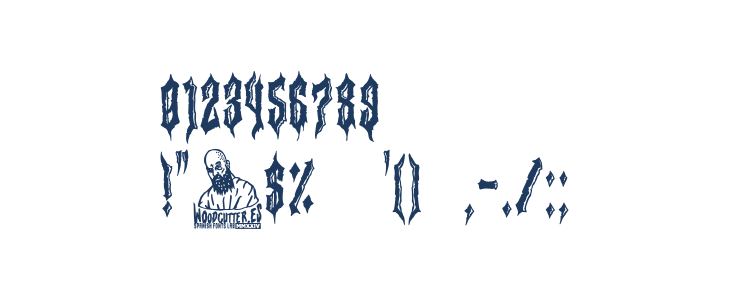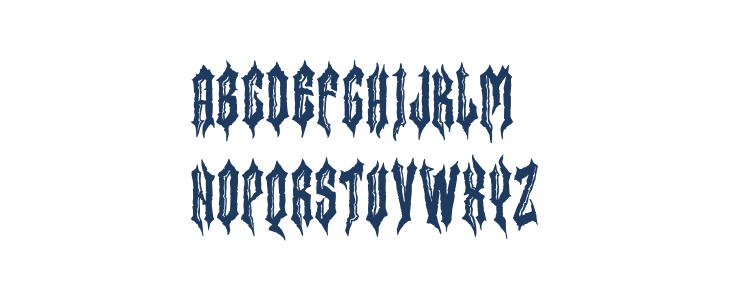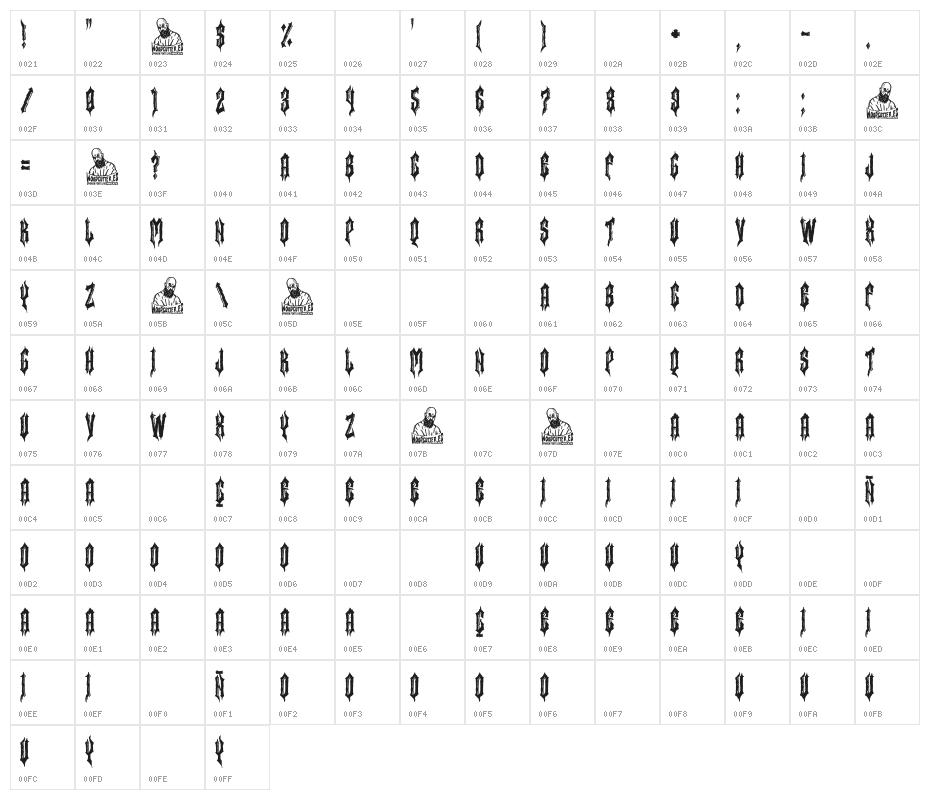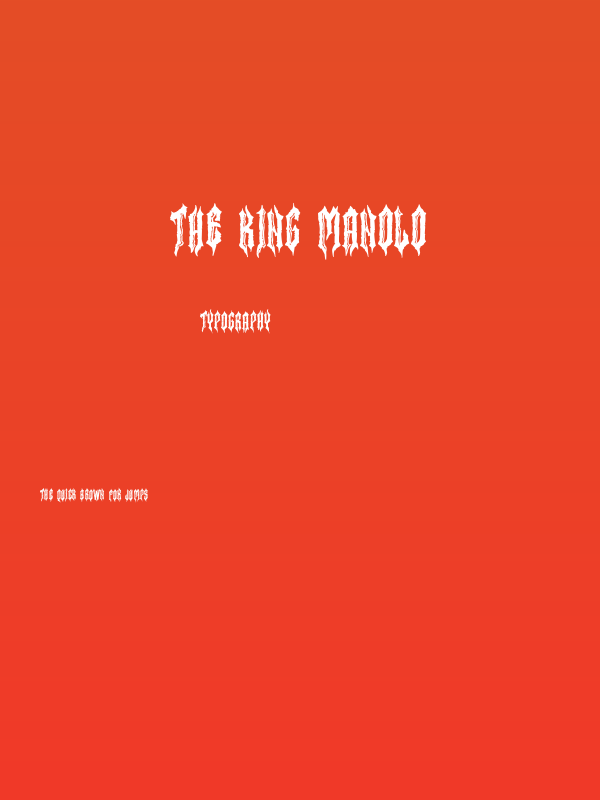
The King Manolo Font
A highly decorative, jagged, and spiky display font with sharp edges and dramatic, irregular strokes, evoking a gothic or horror-inspired aesthetic. The letterforms are bold and condensed, with high contrast between thick and thin areas, and exaggerated vertical elements.
Overall StyleDecorative, Gothic, Horror
Proposed ProjectsHorror movie posters, Halloween event flyers, band logos, tattoo designs, edgy branding, video game titles.